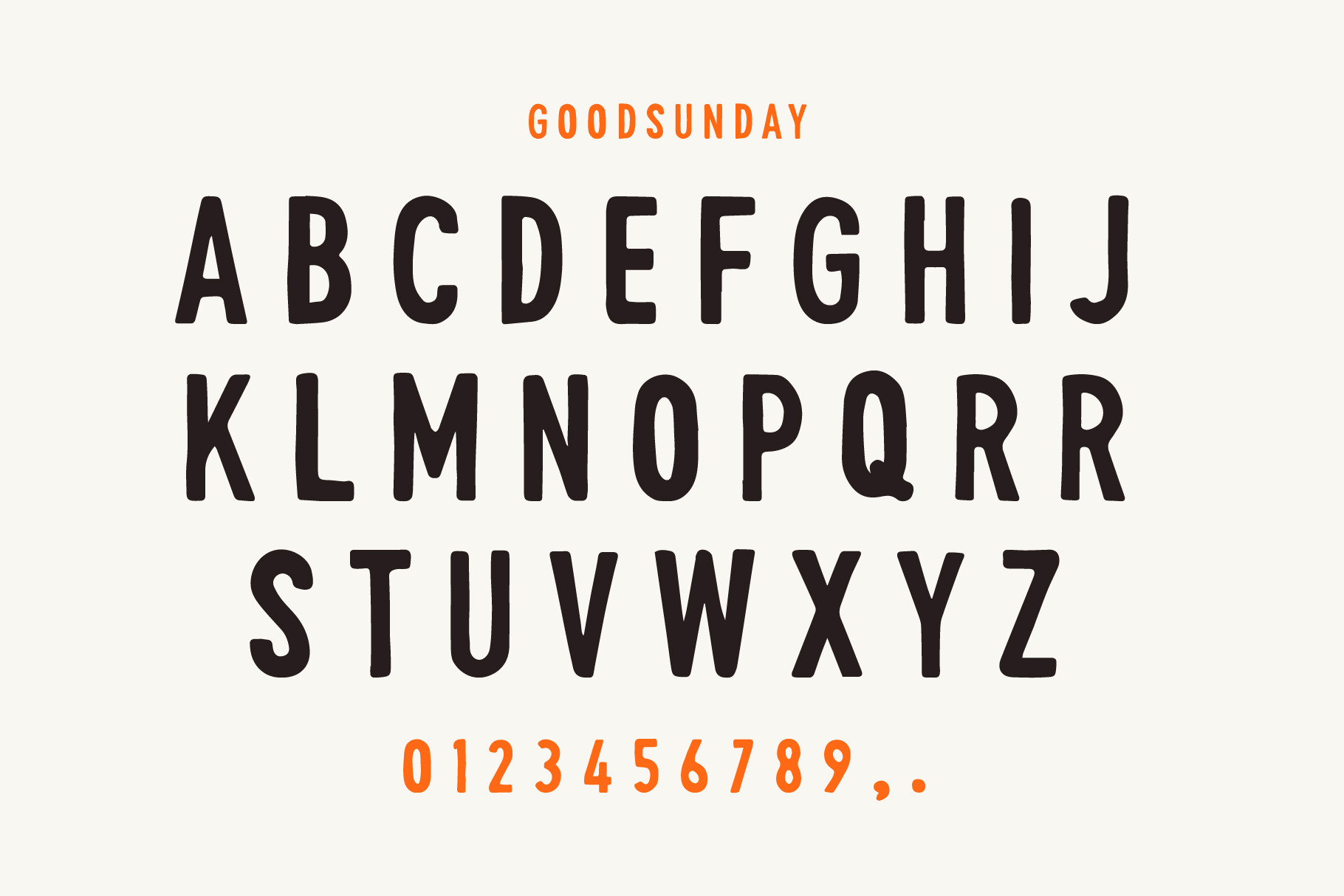
Goodsunday font
Good sunday font
fonts for your Brand needs, bold fonts are suitable for your brand to make t-shirts, logos, prints, stickers and other merchandise,etc.